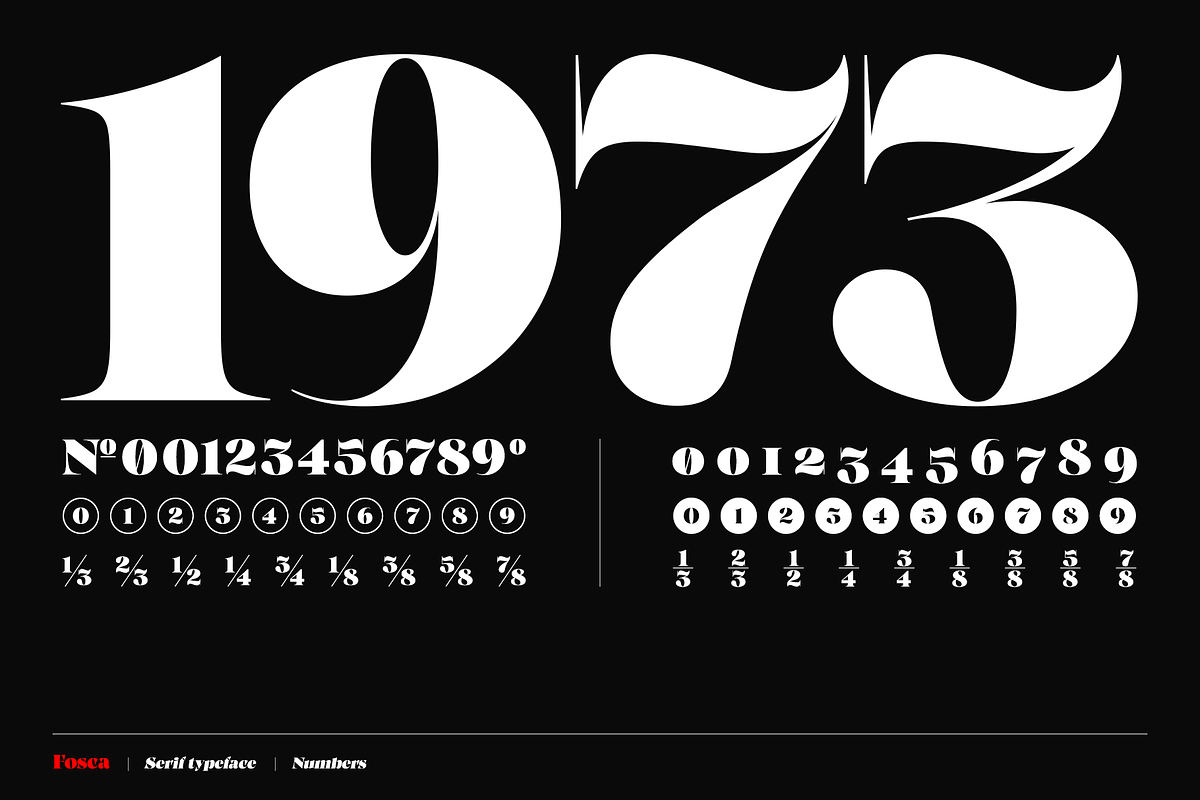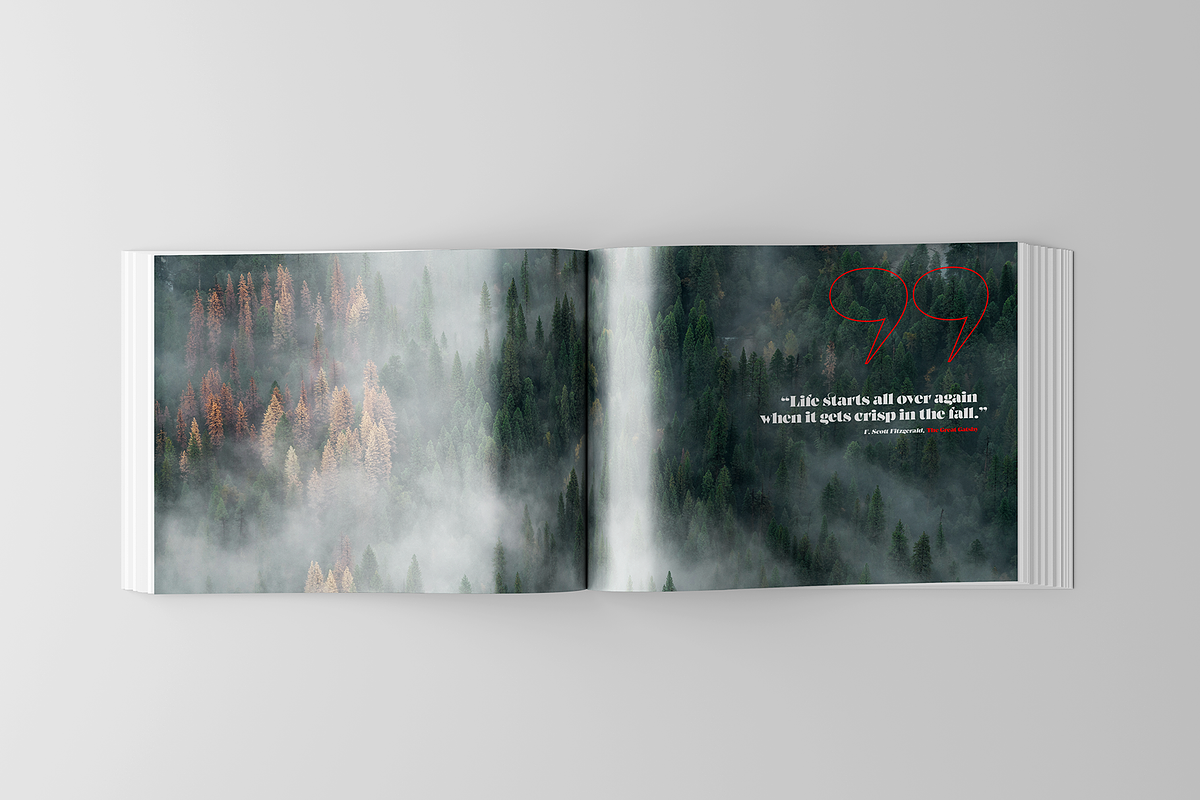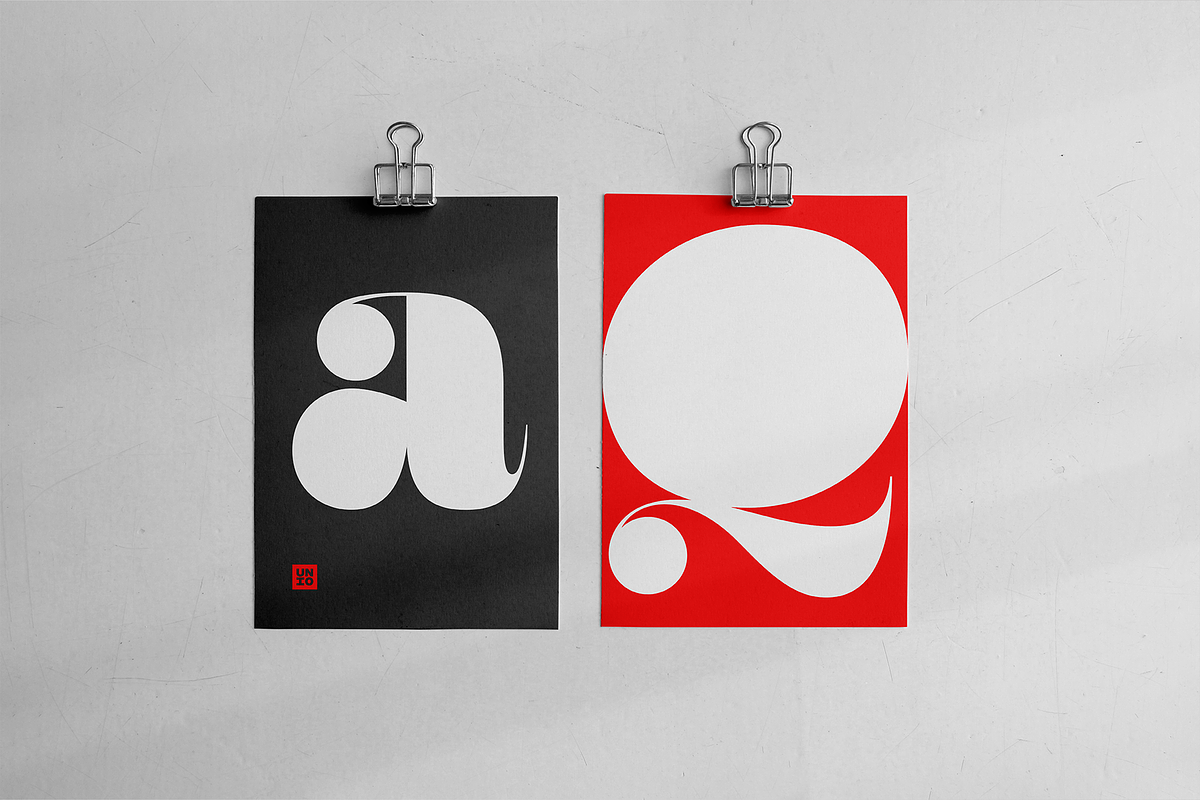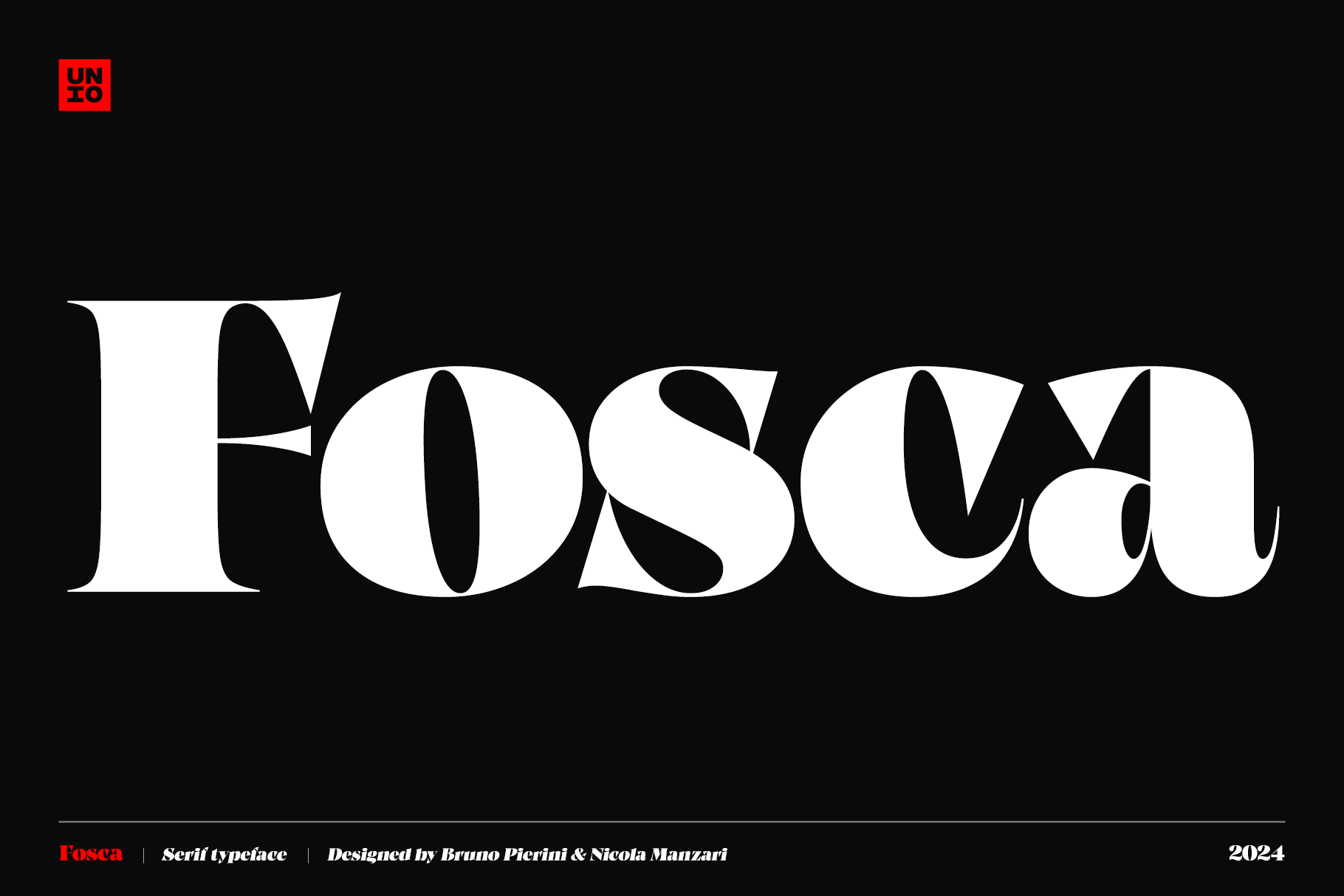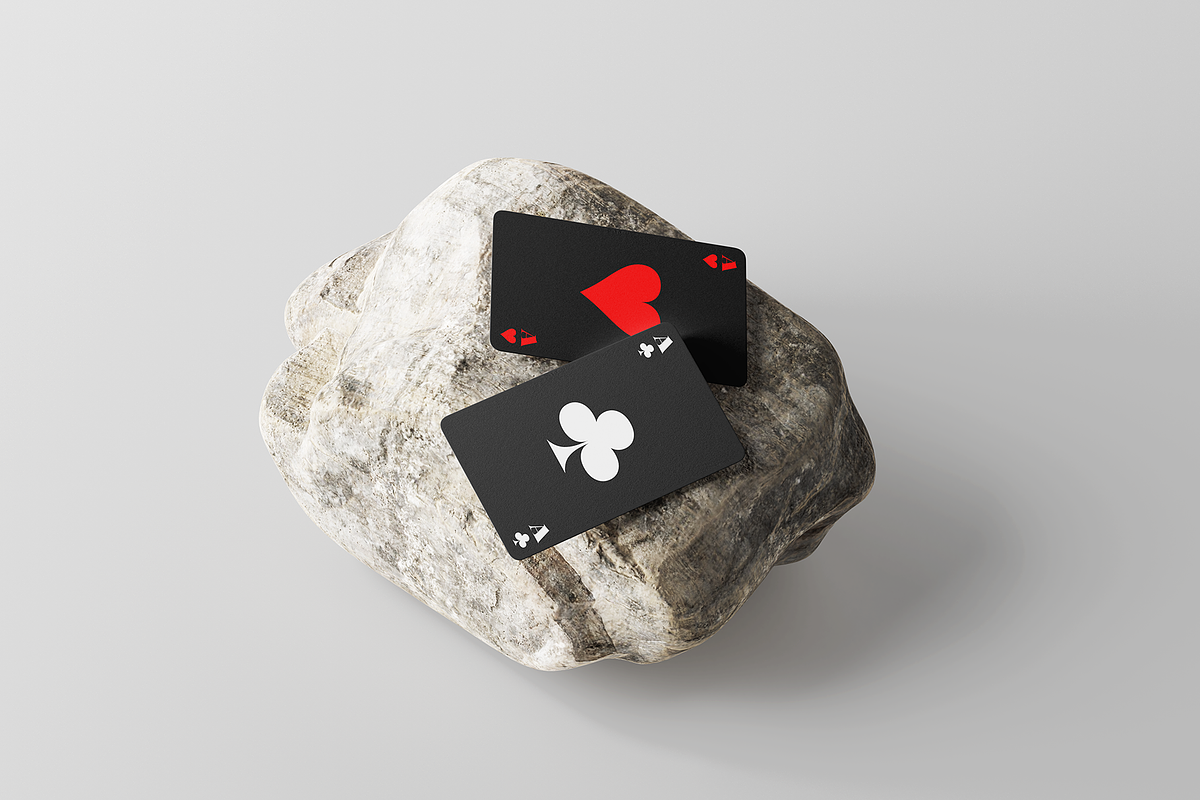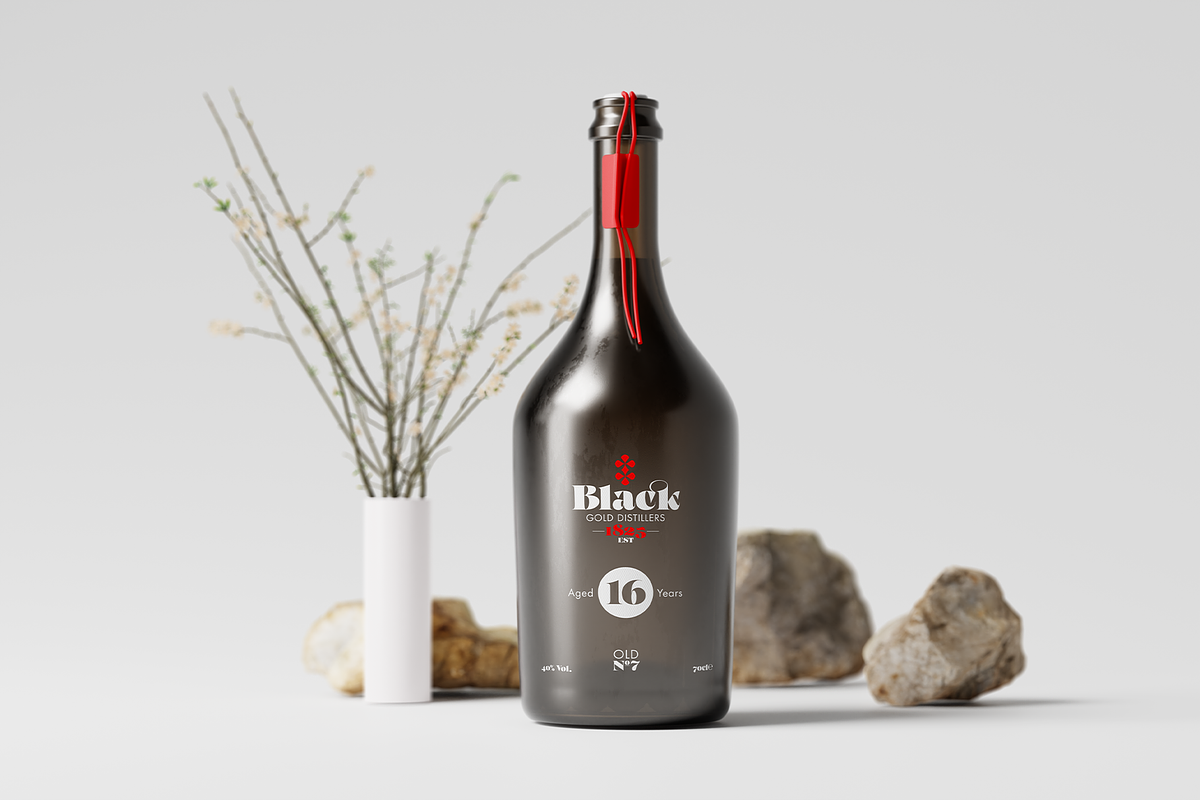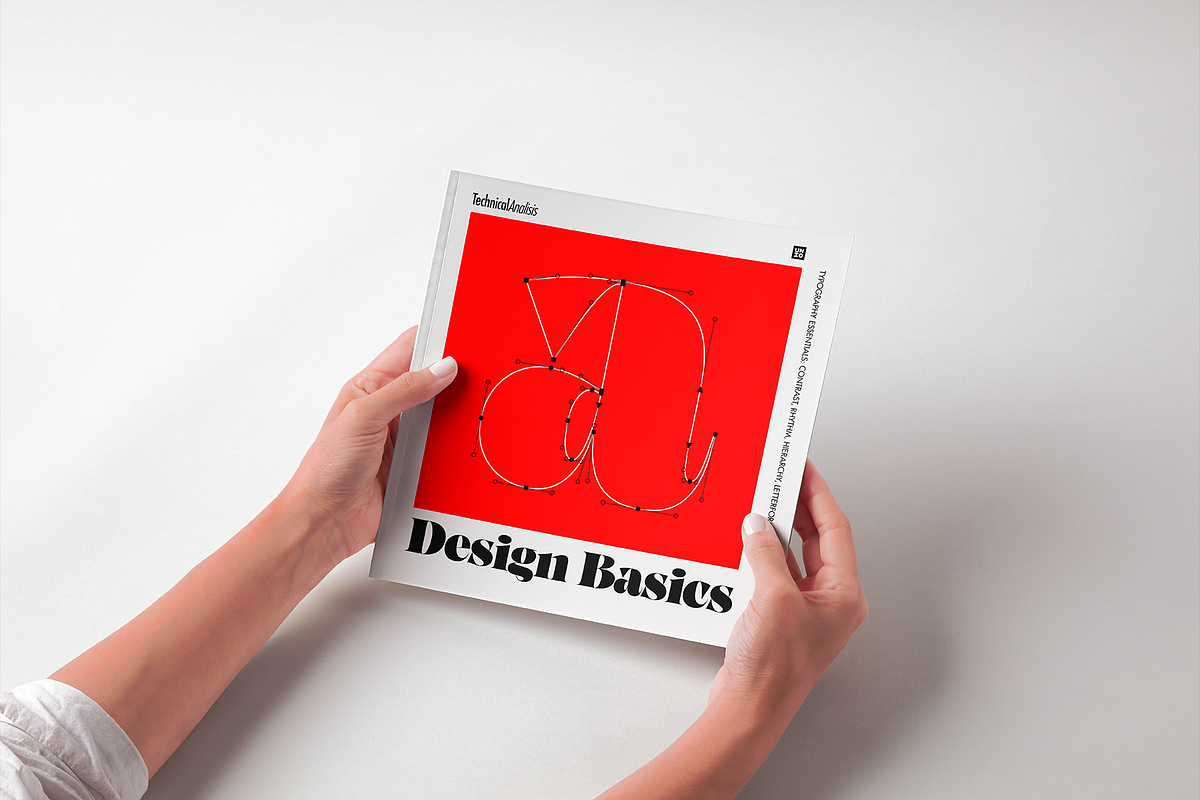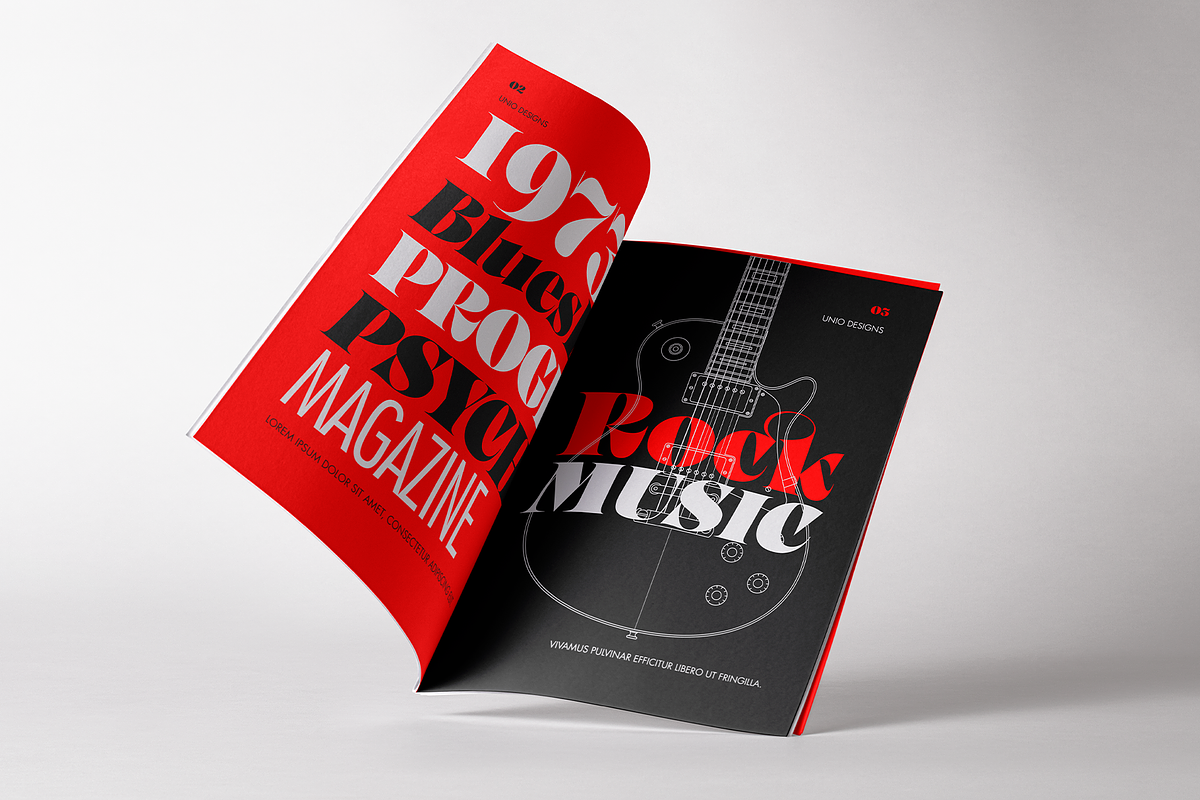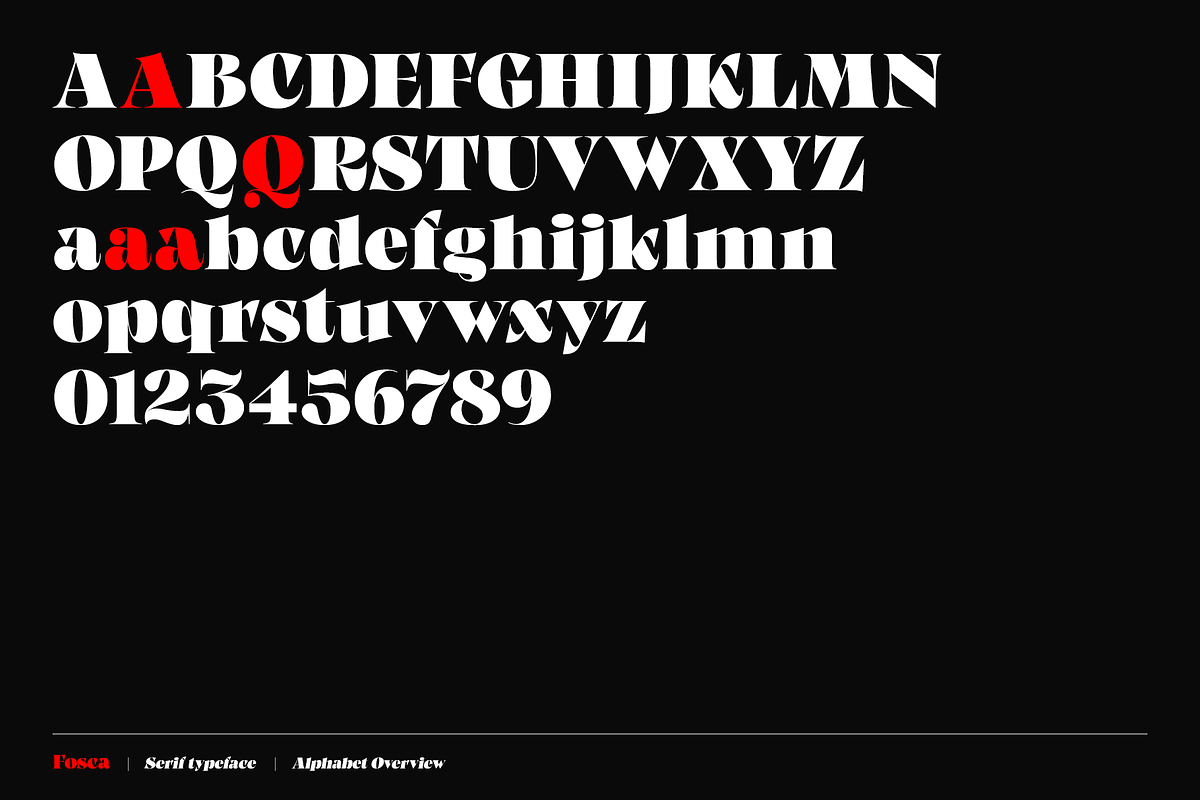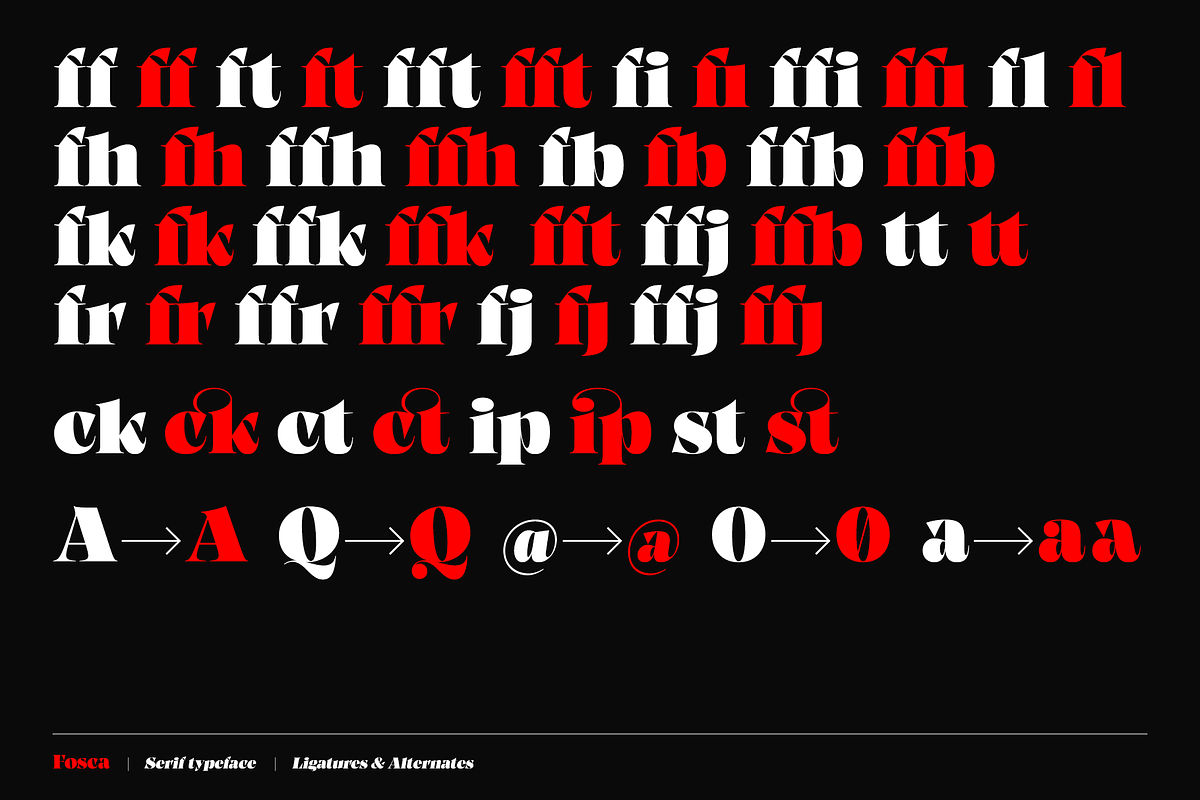
Fosca - Serif Typeface
Fosca is a bold baroque serif display typeface that fuses classic elegance with contemporary design to offer continuous and comfortable reading. Its curves are inspired by the shapes of a famous predecessor: Clarendon. Due to its design features, the terminals are designed for adding a subtle ornamental aesthetic to the typeface guaranteeing a pleasant viewing experience combining delicacy and readability
Available in a single Bold weight, it is crafted specifically for headings where its striking character and high contrast can take center stage. With its strong identity and excellent legibility on both screen, paper and advertising. Fosca is the perfect tool for creating distinctive branding as well as typesetting a literary work.
Fosca’s design plays with exaggerated strokes, balancing rigid, upright structures with dynamic shapes that feels both timeless and distinctly modern.
Its comprehensive glyph set covers a wide range of European languages. To meet today's typographic demands, Fosca also includes an extensive character set covering alternates, ligatures, old numbers and proportionals, all accompanied by their corresponding oblique versions. To further enhance its expressiveness, Fosca includes various symbols pushing the boundaries of traditional design.
The fusion of classic and contemporary makes it an ideal option for designers looking for a versatile typography with character.
- Alternates, Ligatures, Old Numbers, Proportionals, Extra Symbols